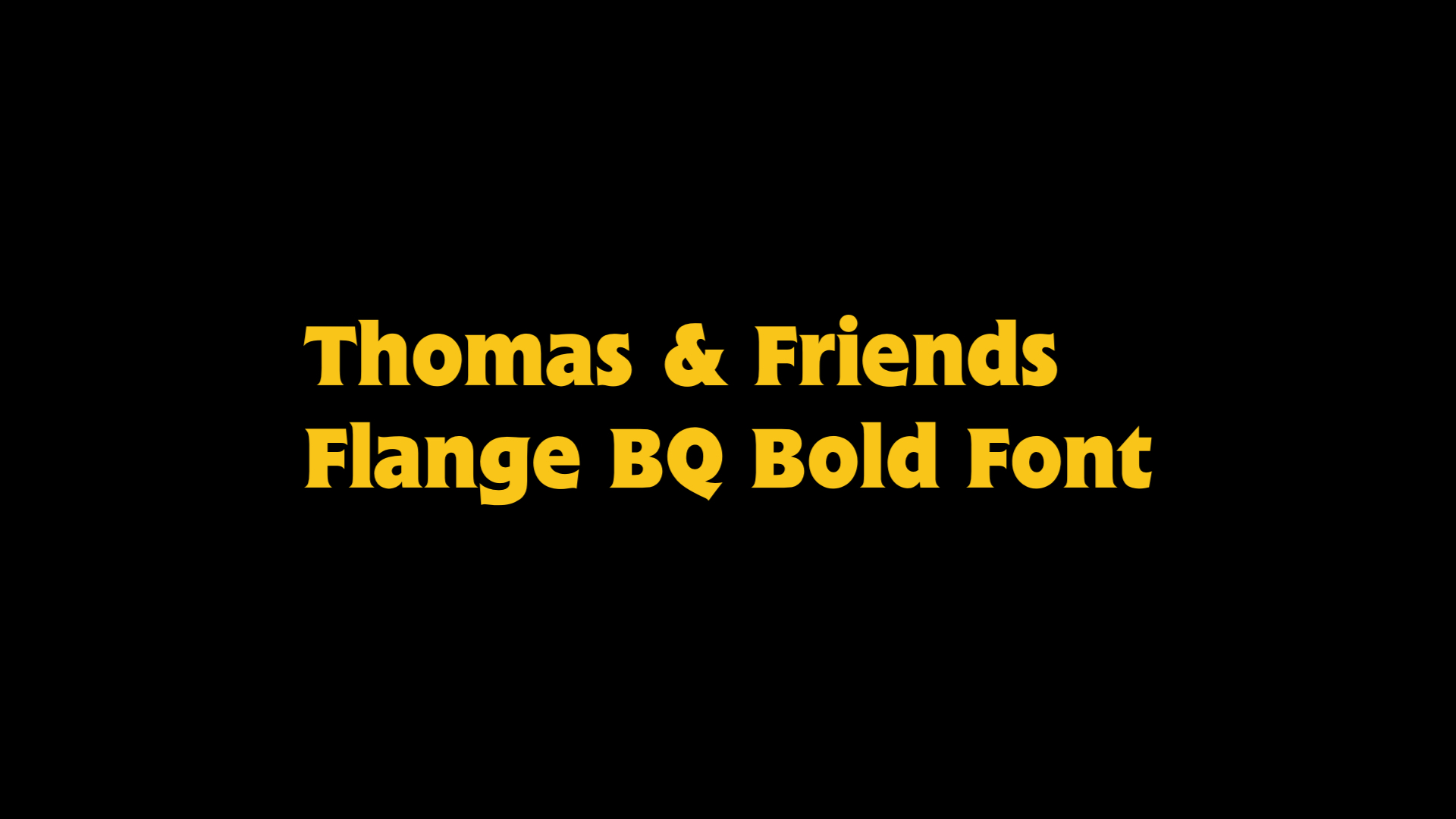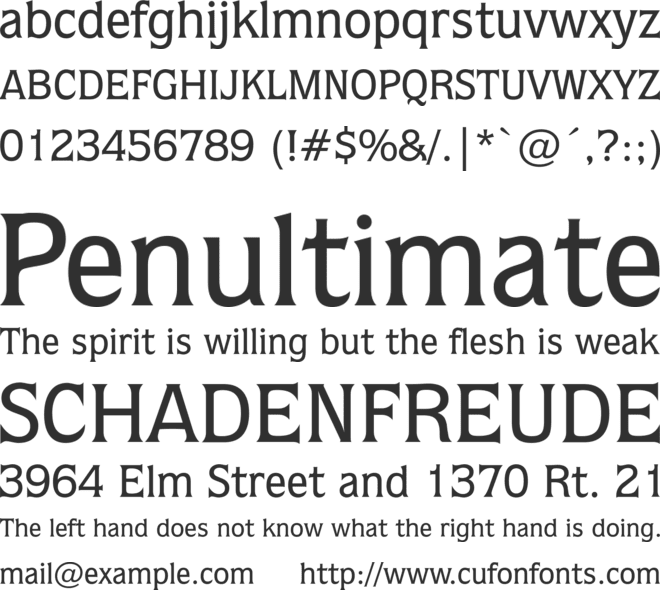
Flange Bq Bold Font
Flange Bq Bold Font - Web flange bq bold is a font of the flange bq font family. Web flange bq bold font. Introducing our latest collection, flange bq. Web flange bq font download. Font flange bq bold belongs to the categories bold, decorative, display,. Votes, rated based on results identification. Bold, display, logo font, opentype, regular, serif, truetype. It was designed by les usherwood in 1981 and is available for both mac and.
Web flange bq bold is a font of the flange bq font family. Bold, display, logo font, opentype, regular, serif, truetype. Web flange bq bold font. Web flange bq font download. It was designed by les usherwood in 1981 and is available for both mac and. Introducing our latest collection, flange bq. Font flange bq bold belongs to the categories bold, decorative, display,. Votes, rated based on results identification.
Bold, display, logo font, opentype, regular, serif, truetype. Web flange bq bold is a font of the flange bq font family. Votes, rated based on results identification. Introducing our latest collection, flange bq. Font flange bq bold belongs to the categories bold, decorative, display,. Web flange bq bold font. It was designed by les usherwood in 1981 and is available for both mac and. Web flange bq font download.
Flange BQ font
Introducing our latest collection, flange bq. Web flange bq font download. Web flange bq bold is a font of the flange bq font family. Votes, rated based on results identification. Font flange bq bold belongs to the categories bold, decorative, display,.
Introducing our latest collection, flange bq. Bold, display, logo font, opentype, regular, serif, truetype. Web flange bq bold font. Web flange bq font download. Web flange bq bold is a font of the flange bq font family.
Thomas and Friends FlangeBQBoldFont by Charlieaat on DeviantArt
Web flange bq bold font. Introducing our latest collection, flange bq. Web flange bq bold is a font of the flange bq font family. Web flange bq font download. Bold, display, logo font, opentype, regular, serif, truetype.
Web flange bq bold is a font of the flange bq font family. Web flange bq font download. Introducing our latest collection, flange bq. It was designed by les usherwood in 1981 and is available for both mac and. Web flange bq bold font.
FlangeBQBold Font
Bold, display, logo font, opentype, regular, serif, truetype. Web flange bq font download. Web flange bq bold font. Votes, rated based on results identification. Introducing our latest collection, flange bq.
It was designed by les usherwood in 1981 and is available for both mac and. Votes, rated based on results identification. Web flange bq bold font. Web flange bq font download. Font flange bq bold belongs to the categories bold, decorative, display,.
Bold, display, logo font, opentype, regular, serif, truetype. Web flange bq bold font. It was designed by les usherwood in 1981 and is available for both mac and. Votes, rated based on results identification. Web flange bq bold is a font of the flange bq font family.
Web flange bq bold is a font of the flange bq font family. It was designed by les usherwood in 1981 and is available for both mac and. Introducing our latest collection, flange bq. Votes, rated based on results identification. Bold, display, logo font, opentype, regular, serif, truetype.
Thomas And Friends Flange BQ Bold Font by Charlieaat on DeviantArt
Web flange bq font download. Bold, display, logo font, opentype, regular, serif, truetype. Web flange bq bold font. Font flange bq bold belongs to the categories bold, decorative, display,. Votes, rated based on results identification.
Flange Font Family Download Free for Desktop & Webfont
Web flange bq bold is a font of the flange bq font family. Font flange bq bold belongs to the categories bold, decorative, display,. It was designed by les usherwood in 1981 and is available for both mac and. Votes, rated based on results identification. Web flange bq bold font.
Introducing Our Latest Collection, Flange Bq.
Bold, display, logo font, opentype, regular, serif, truetype. Web flange bq font download. It was designed by les usherwood in 1981 and is available for both mac and. Web flange bq bold font.
Font Flange Bq Bold Belongs To The Categories Bold, Decorative, Display,.
Web flange bq bold is a font of the flange bq font family. Votes, rated based on results identification.